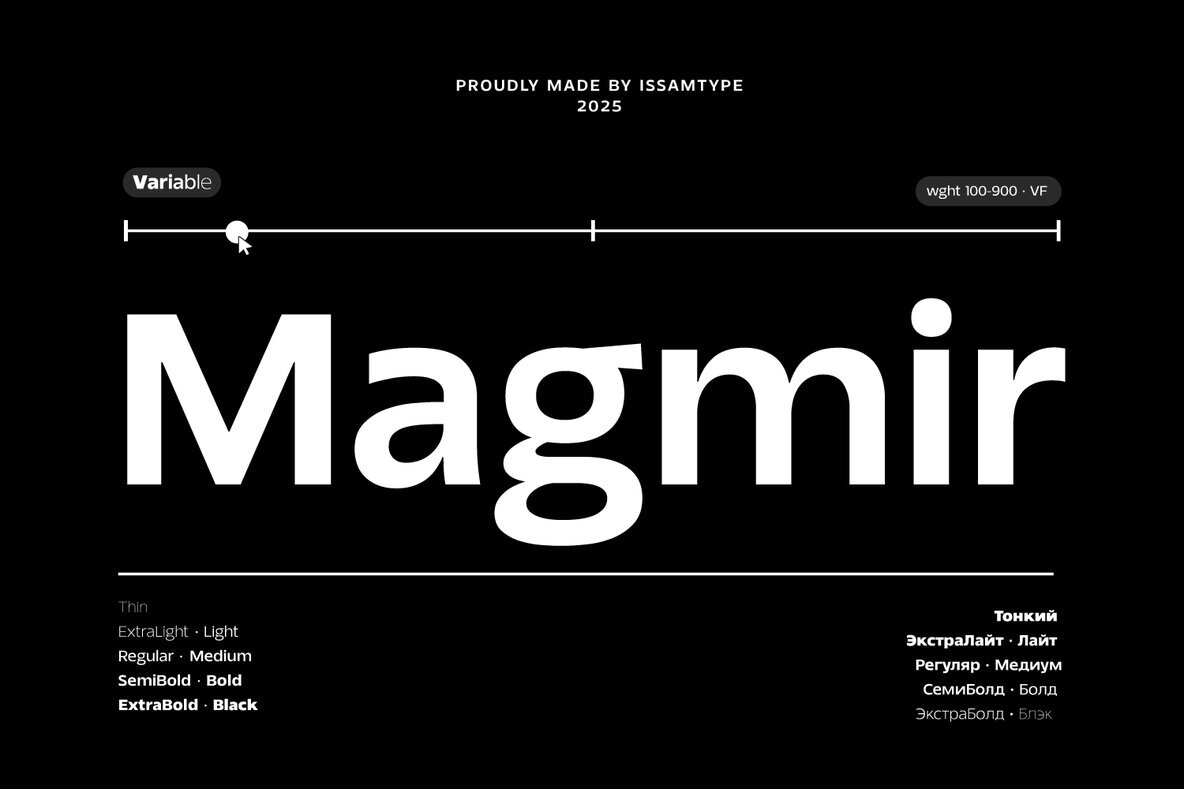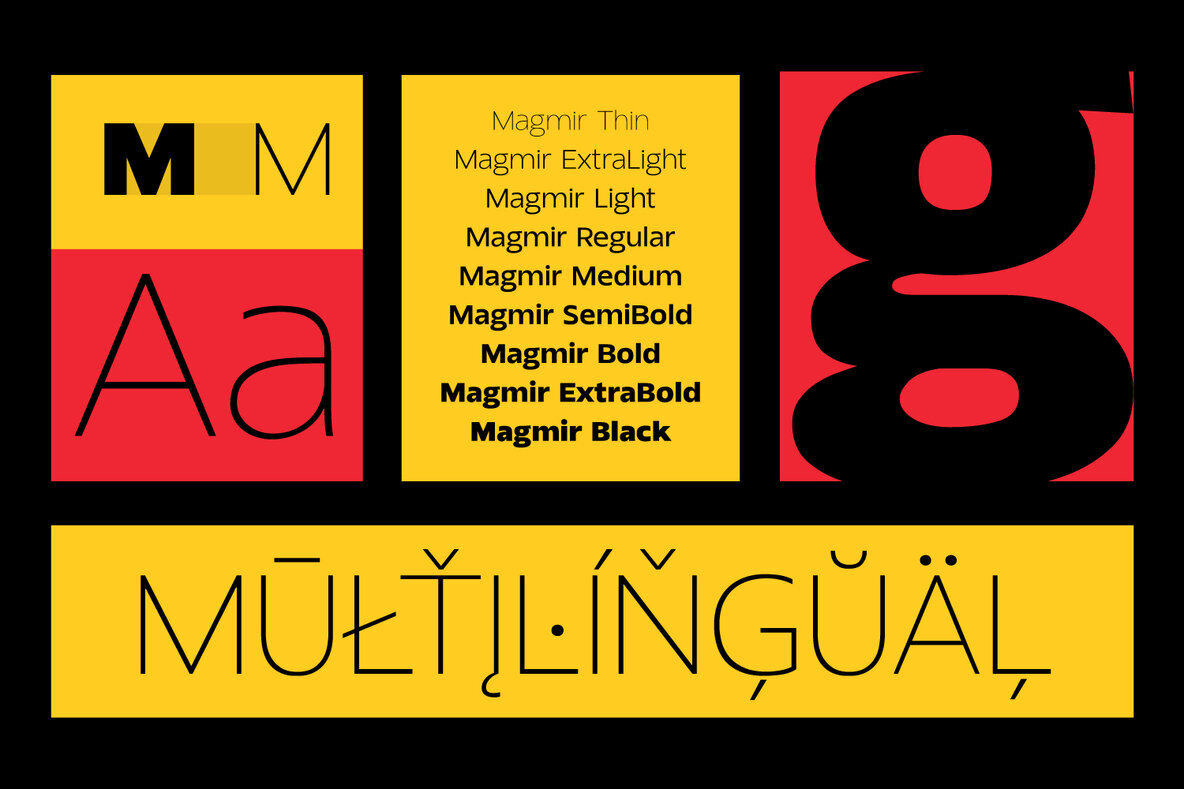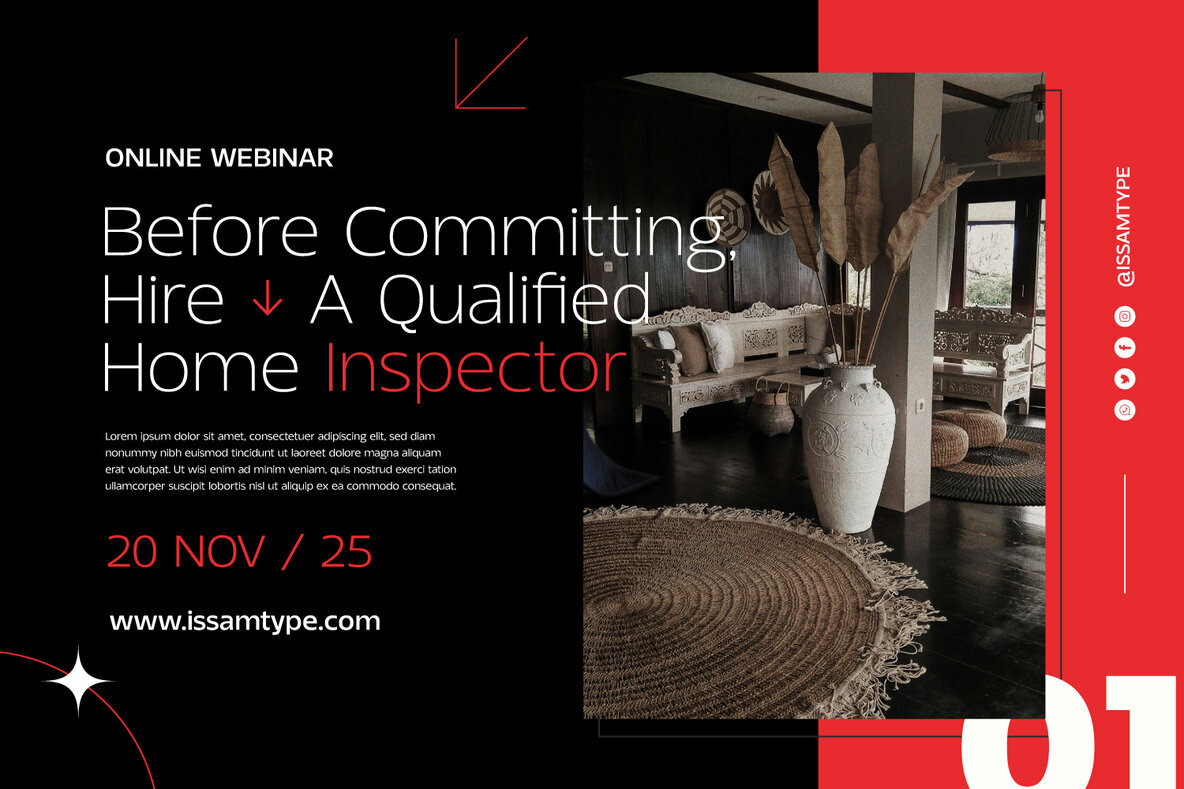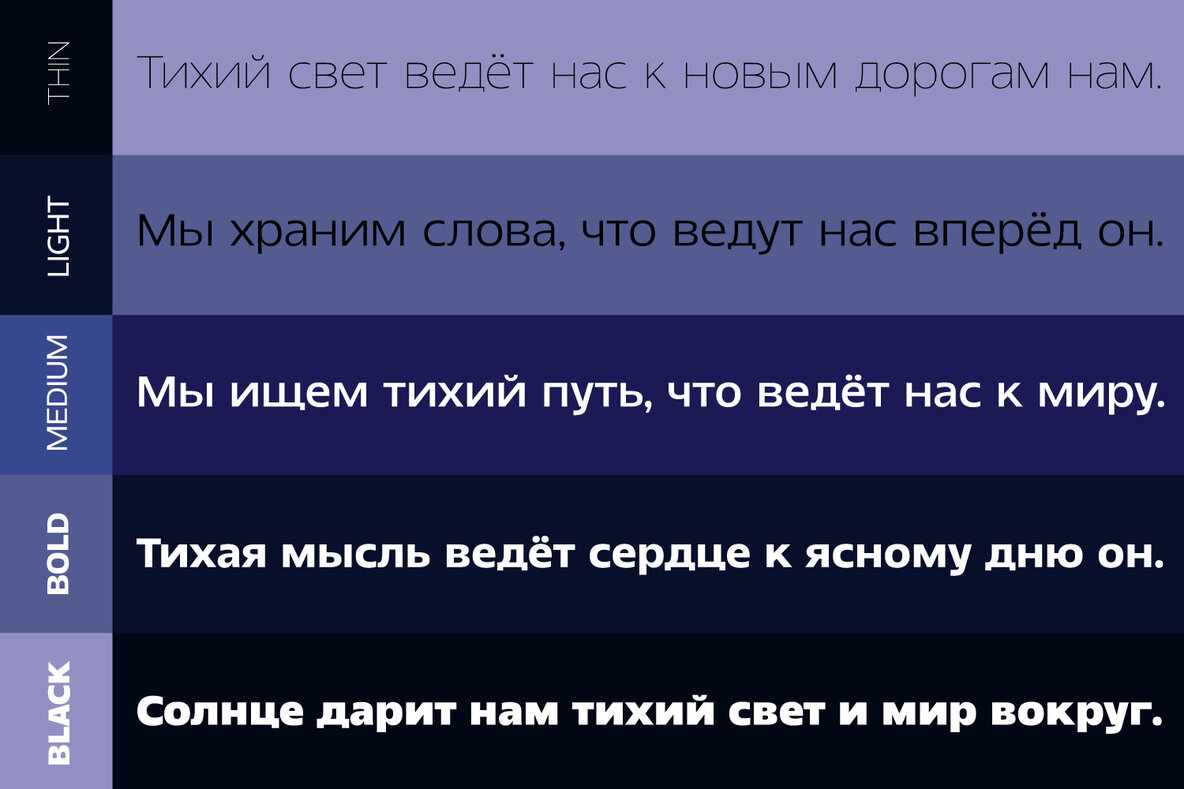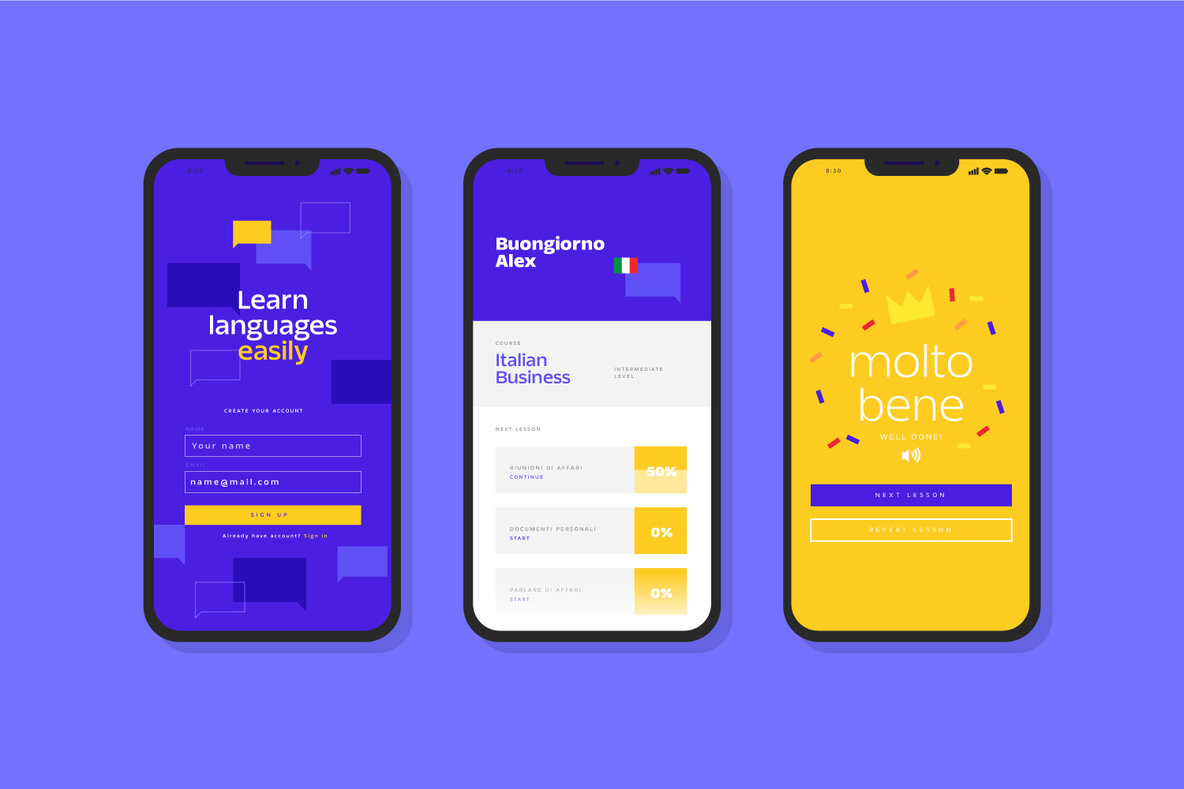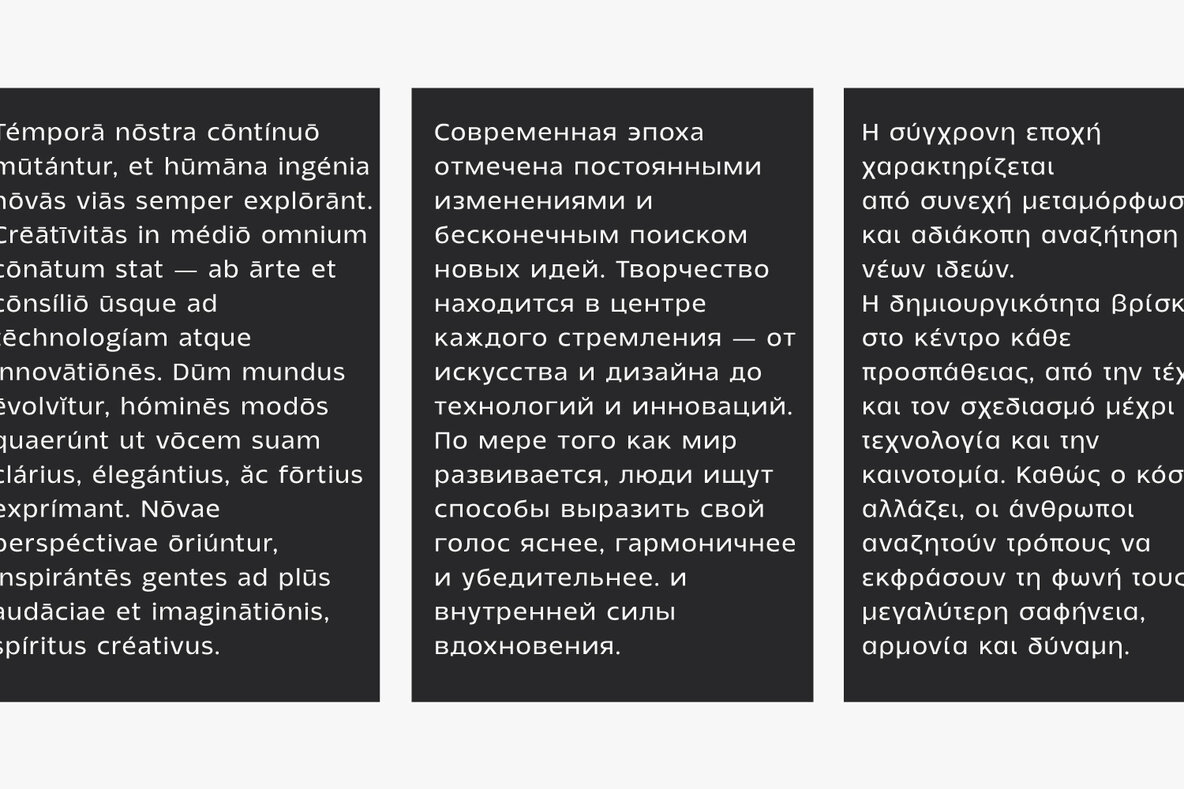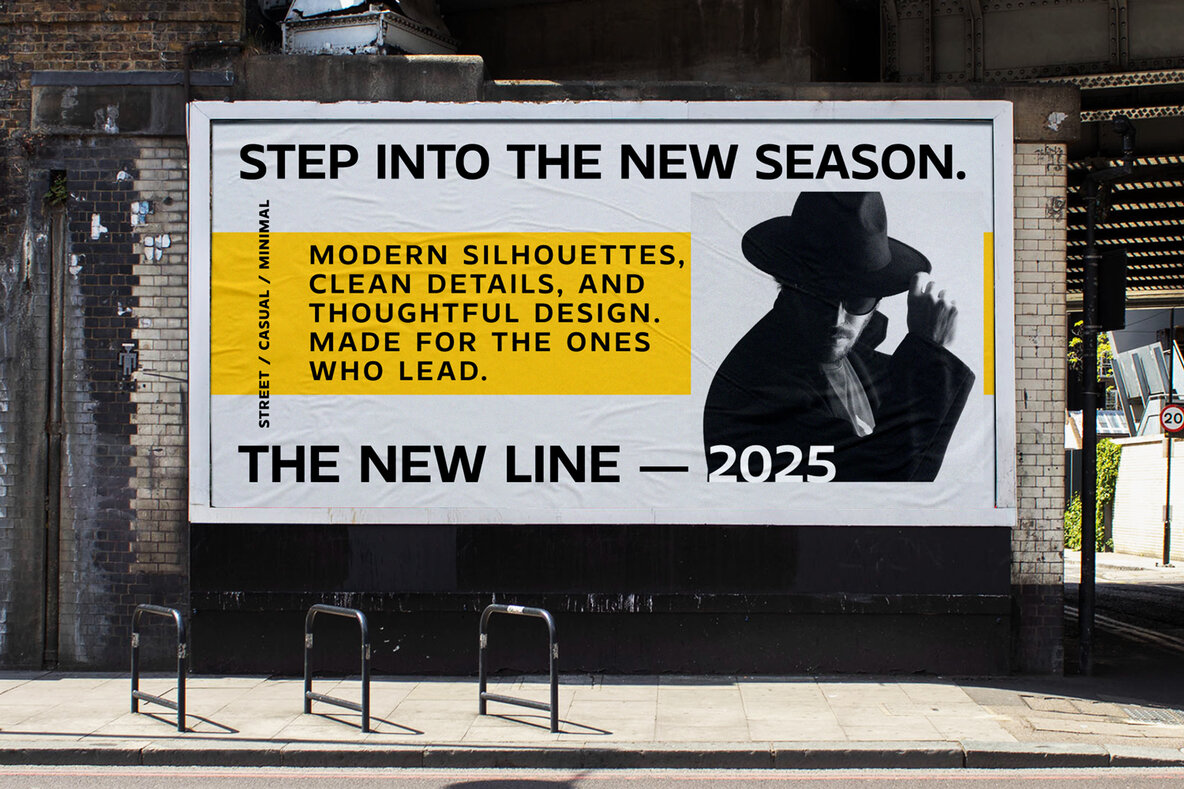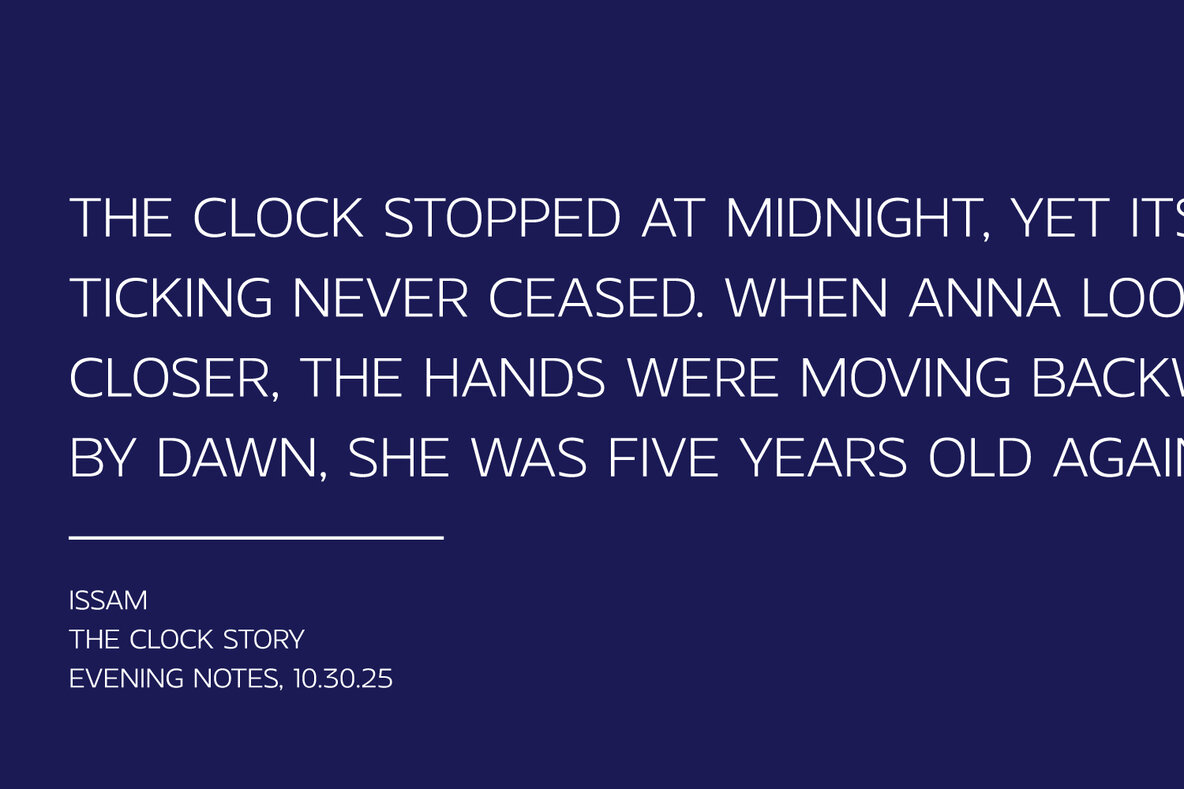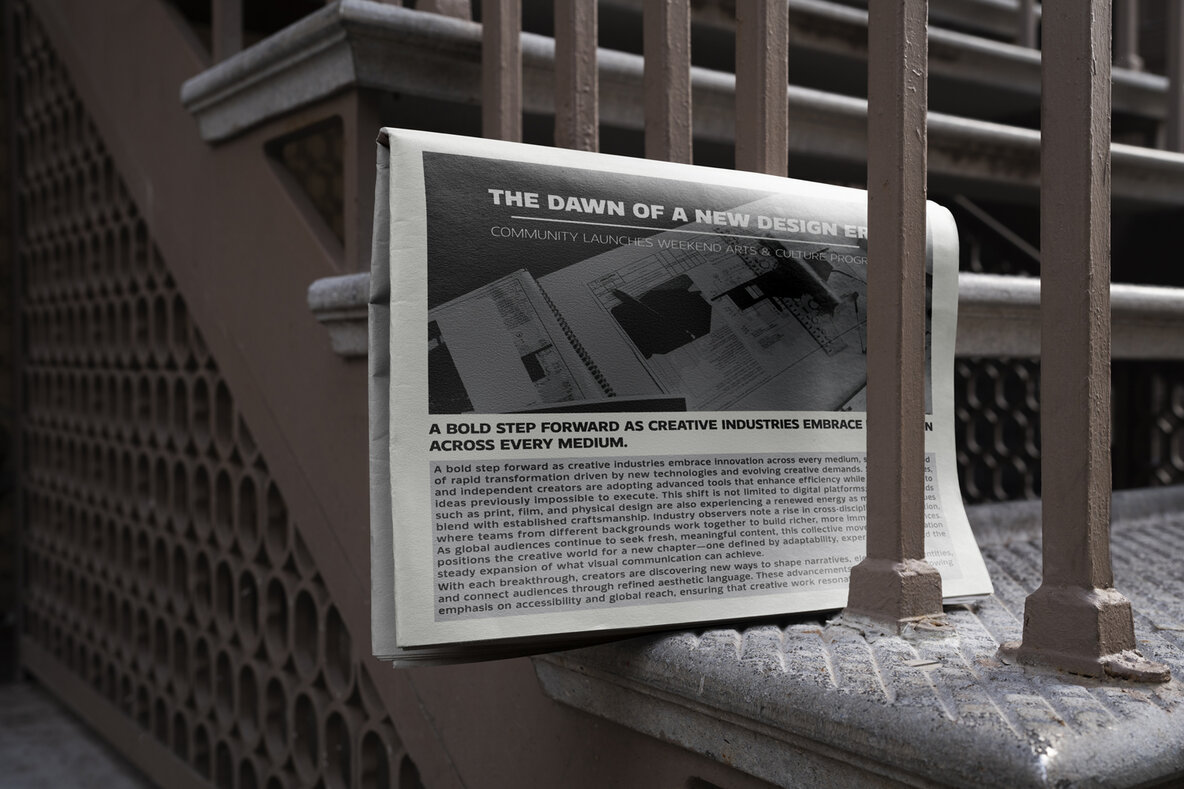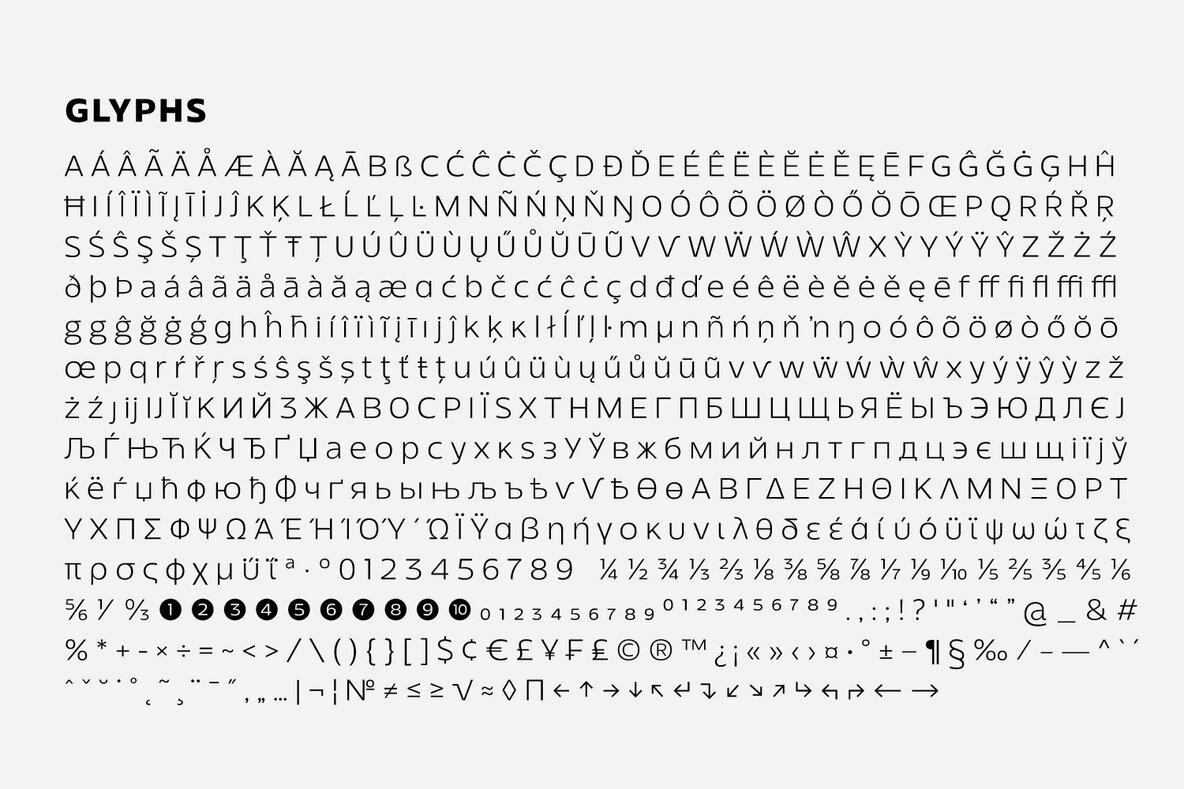
Magmir Font
Magmir is a contemporary sans serif font crafted around precise geometry and gentle curves. The collection is distinguished by its balanced proportions, allowing it to function elegantly across a broad visual spectrum—from the lightest stroke to substantial bold weights. This adaptability makes Magmir well-suited for branding, editorial headlines, digital interfaces, and print design where readability and visual coherence matter. The neutral tone and polished finish reflect a thoughtful approach to modern typography. The clarity of Magmir’s forms ensures it performs confidently in both display and body usage. Subtle rhythm across the characters offers consistency, while an extensive weight range provides ample flexibility for designers seeking versatility in their typographic palette.Magmir: Minimal Sans Serif With Refined Geometry